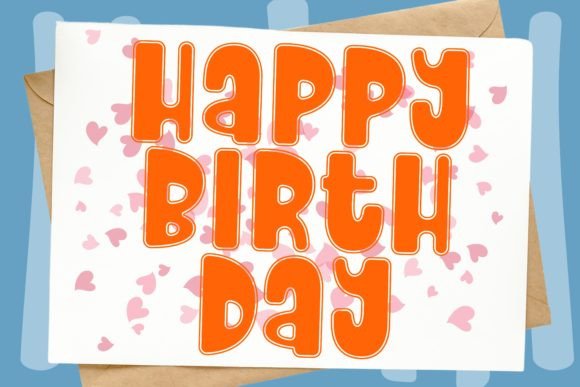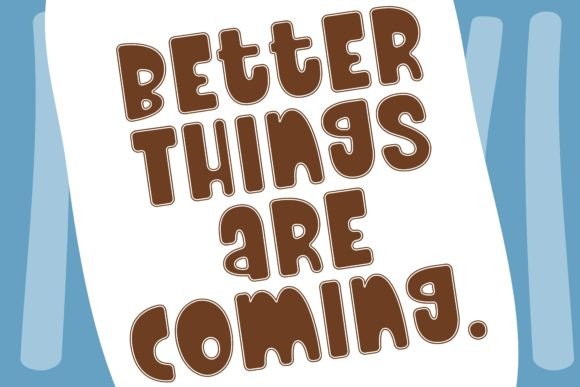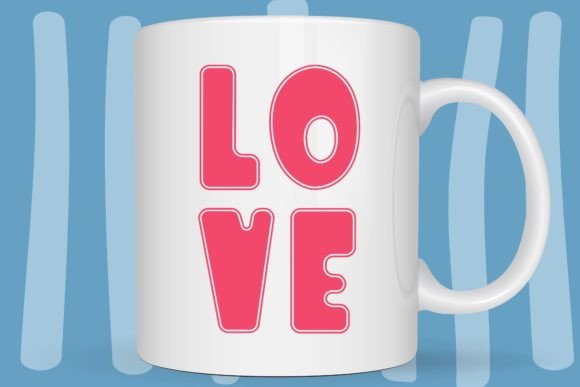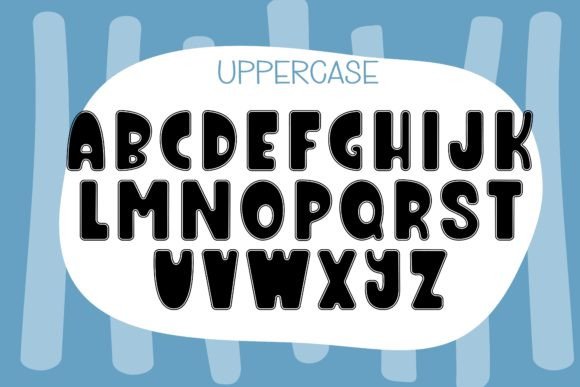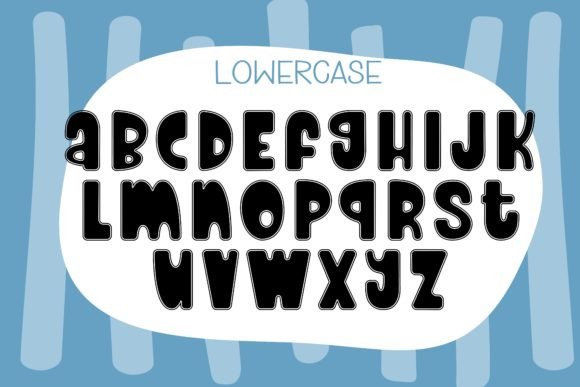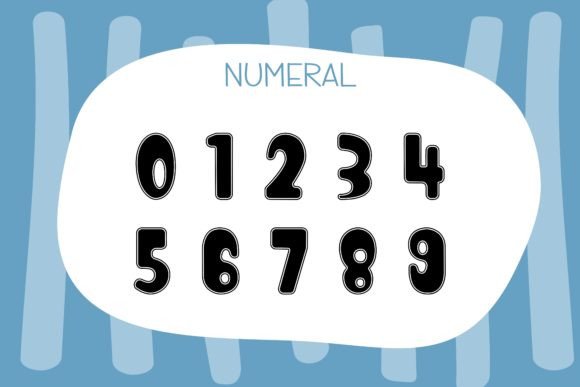
Introducing Daily Story Font: The Perfect Addition to Your Fun and Creative Projects
Are you a designer, crafter, or DIY enthusiast looking for a font that can add a touch of cuteness and playfulness to your projects? Look no further than Daily Story Font! This adorable decorative font is designed to bring a bright and fun vibe to any project, making it perfect for child-related themes, party decorations, and more.
What Makes Daily Story Font So Special?
Daily Story Font is crafted in a unique and stylish decorative font style that exudes a sense of innocence and charm. Its cute and adorable design makes it an ideal choice for projects that require a touch of whimsy and playfulness. Whether you’re working on a back-to-school project, birthday party decoration, or any other creative endeavor, Daily Story Font is sure to make it stand out.
Perfect for Child-Related Projects
Daily Story Font is particularly well-suited for child-related projects, such as:
- Back-to-school materials: Create eye-catching posters, flyers, and worksheets that kids will love.
- Birthday party decorations: Add a personal touch to party invitations, banners, and DIY crafts.
- Kids’ party themes: Use Daily Story Font to create custom party hats, cupcake toppers, and other decorations.
Beyond Child-Related Projects: Adding a Fun Touch to Any Theme
While Daily Story Font is perfect for child-related projects, its versatility means it can be used in a wide range of applications beyond kids’ themes. Consider using it for:
- Wedding decorations: Add a playful touch to wedding invitations, banners, and other decorative elements.
- Food and beverage branding: Use Daily Story Font to create fun and catchy labels, packaging, and marketing materials.
- Social media graphics: Stand out on social media with eye-catching graphics, quotes, and posts featuring Daily Story Font.
Why Choose Daily Story Font?
So, what sets Daily Story Font apart from other fonts? Here are just a few reasons why designers and crafters love it:
- Unique and stylish design: Daily Story Font boasts a one-of-a-kind design that’s sure to grab attention.
- Easy to read: Despite its decorative style, Daily Story Font remains clear and easy to read, making it perfect for both digital and print applications.
- Versatile: Use Daily Story Font in a wide range of projects, from digital graphics to handmade crafts.
Get Creative with Daily Story Font!
Ready to add a touch of fun and playfulness to your projects? Try Daily Story Font today and discover how it can elevate your creative ideas! Here are some tips to get you started:
- Experiment with different colors and textures to make your project pop.
- Pair Daily Story Font with other fonts for a unique and eye-catching combination.
- Don’t be afraid to get creative and try new things – Daily Story Font is designed to inspire imagination and fun!